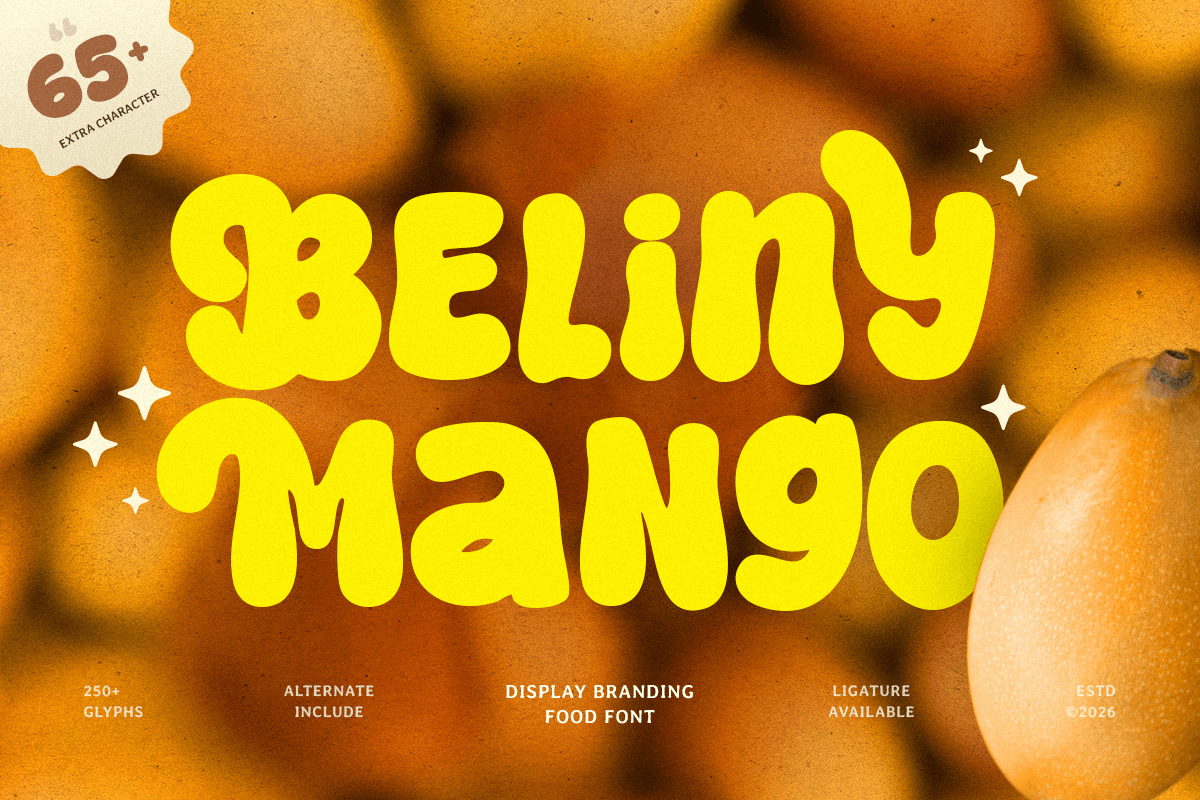
Beliny Mango
-Display Branding Food FontBeliny Mango - Display Branding Food Font
BELINY MANGO is a display branding food font designed to bring a fresh, cheerful, and appetizing look to your typography. With bold shapes and a friendly visual rhythm, this typeface creates a delicious personality that feels fun, inviting, and instantly memorable for food-focused branding.
Built for standout culinary visuals, BELINY MANGO works beautifully across restaurant logos, café menus, food packaging, snack labels, product branding, posters, signage, social media graphics, and digital promotions. Its display-driven character keeps every headline strong and readable while adding a playful flavor that helps brands look more lively and engaging across both print and digital layouts.
Whether you’re creating a tropical drink label, building a dessert brand, designing a café menu, or launching a colorful food campaign, BELINY MANGO provides a bold typographic foundation that makes your visuals feel fresh, tasty, and full of personality.
Inspiration Behind BELINY MANGO
BELINY MANGO is inspired by modern food packaging and cheerful culinary branding—where bold forms and playful rhythm make products feel more delicious and eye-catching. The design focuses on friendly display shapes and energetic balance to support food identity systems with a fresh, flavorful, and brand-ready tone.
BELINY MANGO Font Features:
Bold display letterforms with playful food-brand character
Perfect for restaurant branding, menus, and packaging design
Strong readability for product names and promotional headlines
Friendly shapes for inviting and appetizing typography
Food logos, restaurant branding, and café identity systems
Menu headlines, specials boards, and promotional graphics
Packaging, labels, stickers, and snack product branding
Posters, signage, banners, and in-store marketing visuals
Social media promotions and colorful food campaign layouts
Make your food branding look irresistibly fresh with BELINY MANGO—a playful display font made for bold, delicious visual impact. 🥭✨